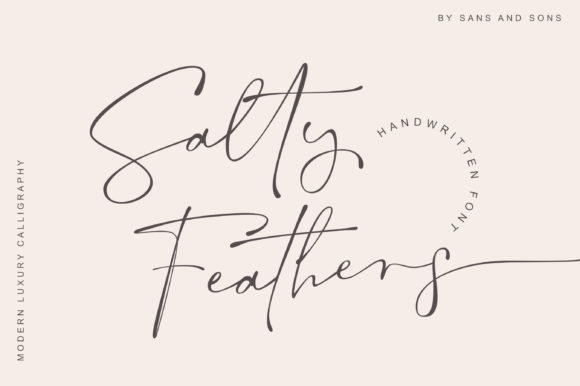
Introducing Salty Feathers Font, the perfect choice for your dreamy wedding welcome sign! Created by the talented team at SansAndSons, this delicate and elegant handwritten font is sure to captivate your heart and leave a lasting impression on your guests.
With its distinct and well-rounded letters, Salty Feathers Font truly stands out as a masterpiece in the world of script fonts. Every stroke carries a touch of grace and sophistication, making it an ideal companion for those seeking a romantic and enchanting vibe.
But what sets Salty Feathers Font apart from the rest? Its PUA encoding feature is a game-changer! This means that you can effortlessly access all the mesmerizing glyphs and swashes that come with this font. Let your creativity flow and effortlessly add those extra flourishes to truly personalize your wedding signage.
Imagine the moment your guests lay their eyes on your beautifully crafted welcome sign, adorned with the charming Salty Feathers Font. It will instantly evoke emotions of love, joy, and anticipation. This font has the power to transform any ordinary wedding into a whimsical fairytale.
Whether you're planning an intimate garden celebration or a grand ballroom affair, Salty Feathers Font effortlessly adapts to any theme or style. Its versatility ensures that it complements your wedding decor perfectly, adding an extra touch of elegance to every detail.
Let your invitations, place cards, and menus come to life with the timeless beauty of Salty Feathers Font. Embrace its enchanting curves and gentle strokes to create a cohesive and visually stunning aesthetic throughout your special day.
Indulge in the allure of Salty Feathers Font and let your imagination soar. With its captivating charm and emotional appeal, this font is more than just letters on a page – it's a love story waiting to be told. Get ready to embark on a journey of romance and create a wedding that will leave everyone breathless.